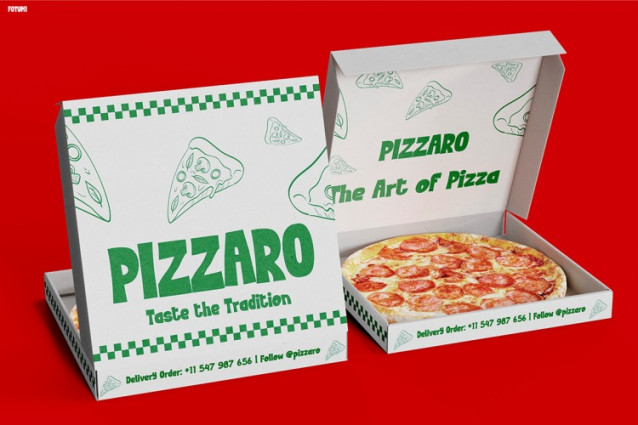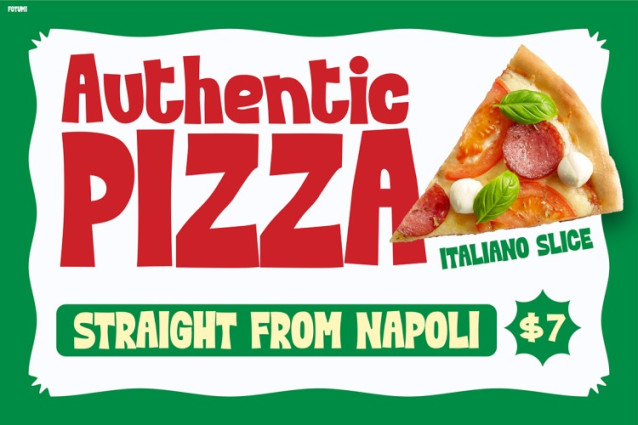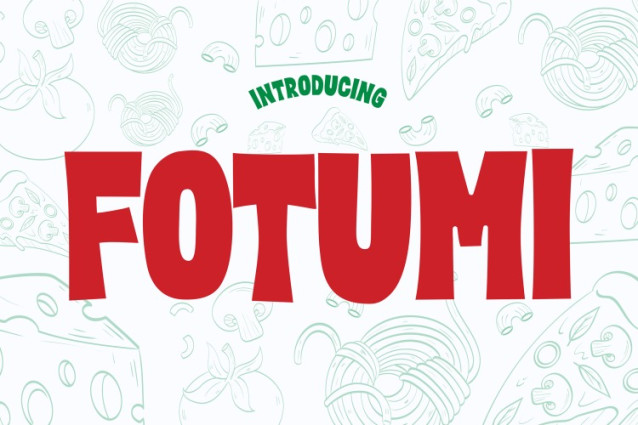
Fotumi Font
Fotumi Font brings a delicious mix of bold shapes and playful curves that feel both friendly and energetic. Its chunky strokes and smooth edges give every letter a lively, handcrafted vibe—perfect for food themes, kids’ branding, and cheerful display layouts. Moreover, the font’s expressive style helps text feel fun, inviting, and full of character. Because of its wide shapes and clean readability, FOTUMI stands out beautifully in menus, signage, product packaging, and promotional materials.
Additionally, the font blends a warm personality with a modern, eye-catching rhythm. Every letter feels flavorful, almost like it belongs in a cozy restaurant or a fun family café. The playful bounce in its forms adds a sense of excitement, while the strong visual weight ensures your message looks bold and confident. As a result, FOTUMI becomes a powerful choice for designs that need a friendly, authentic, and mouthwatering visual voice.
FOTUMI was created with inspiration from Italian eateries, kid-friendly branding, and joyful food visuals. Its letters carry a soft handcrafted look that pairs well with pizza illustrations, pasta graphics, or any colorful food imagery. Furthermore, the curves and bold strokes create a natural flow, making the font highly readable at any size.
Additionally, FOTUMI supports bright colors, textured backgrounds, and dynamic layouts. The font works great for catchy headlines, special offers, and menu boards that need strong impact. It brings an approachable charm—perfect for food promotions, packaging labels, and fun marketing themes. Moreover, its playful yet structured style ensures that your design stays polished while still feeling energetic.